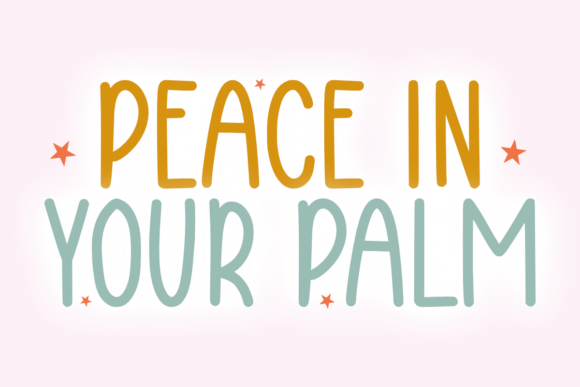
Cozy Hand Font
Cozy Hand is a warm and inviting handwritten font that combines a playful charm with a casual elegance. Featuring smooth, rounded strokes and a slightly imperfect touch, this font mimics natural handwriting, making it perfect for projects that need a friendly, personal feel. Whether you’re designing greeting cards, branding elements, social media posts, or children’s book titles, Cozy Hand adds a sense of authenticity and warmth.